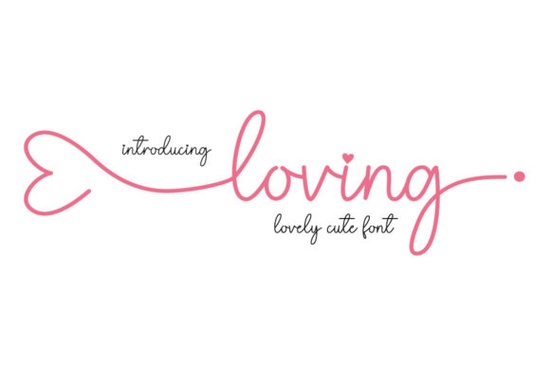
If you’ve been searching for a script font that feels personal, polished, and just a little bit romantic, Loving Font might be exactly what your next project needs. It’s not overly ornate or hard to read instead, it strikes a balance between elegance and usability. Whether you’re designing wedding invites, branding materials, or social media graphics, this font brings a soft, modern touch that doesn’t overwhelm your layout.
What kinds of projects work best with Loving Font?
This font shines when used in designs that call for warmth and personality. Think handwritten-style logos for small boutiques, custom stationery sets, or even packaging labels for artisanal goods. It’s especially popular among crafters who make vinyl decals, planners, or printable wall art. The letterforms have enough flow to feel artistic but remain legible at smaller sizes a rare combo in script fonts.
- Wedding invitations and save-the-dates
- Branding for bakeries, florists, or handmade shops
- Social media quote graphics
- Printable journals or planner inserts
- Personalized gifts like mugs, tote bags, or greeting cards
If you’ve liked fonts like Victory Swing or The Wedding Signature in the past, you’ll probably find Loving Font fits right into your toolkit. It’s less bouncy than Victory Swing and more refined than The Wedding Signature making it a great middle ground for everyday elegance.
How does it compare to other delicate scripts?
Not all script fonts play well across different mediums. Some look gorgeous as large headlines but fall apart when scaled down. Others have so many flourishes they become distracting. Loving Font avoids both pitfalls. The strokes are consistent, the spacing feels natural, and the terminals taper gently without disappearing.
For beachy or casual vibes, you might lean toward something like Beach Waves Duo. For minimalist journaling, Simple Planner could be your go-to. And if you want something moodier or moonlit, Humble Moon offers a totally different aesthetic. But when you need that sweet spot of graceful + readable? That’s where Loving Font steps in.
Any tips for pairing it with other fonts?
A good rule of thumb: pair Loving Font with clean, simple sans-serifs. A neutral typeface like Montserrat, Lato, or even Arial lets the script shine without competing for attention. Avoid pairing it with other scripts unless you’re going for intentional contrast and even then, limit yourself to one decorative element per layout.
Also, don’t forget to play with line spacing. Script fonts often need a little extra breathing room, especially in longer phrases. In programs like Photoshop or Illustrator, bumping up the leading by 10–20% can make your text feel more luxurious and easier to read.
Before you start designing:
- Test readability try it at the actual size you’ll be using it. What looks beautiful at 72pt might get muddy at 12pt.
- Use sparingly this font has personality. Let it headline or accent, not fill entire paragraphs.
Whether you’re refreshing your brand, creating keepsakes for clients, or just playing around with new design ideas, Loving Font gives you that hand-lettered charm without the hassle. It’s the kind of font you’ll come back to again and again not because it shouts for attention, but because it quietly makes everything look a little more thoughtful.